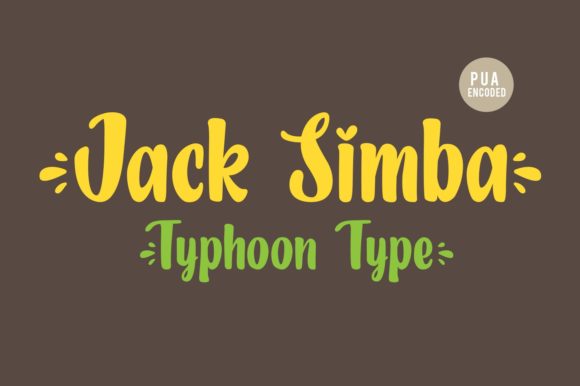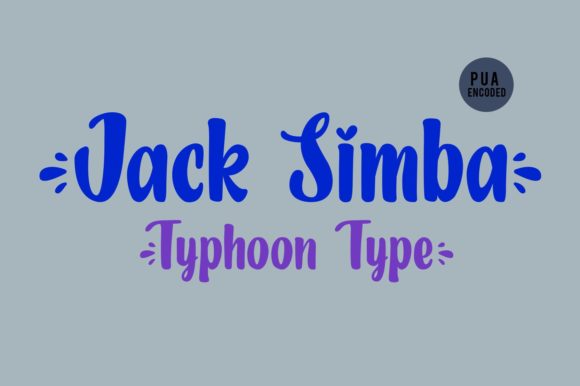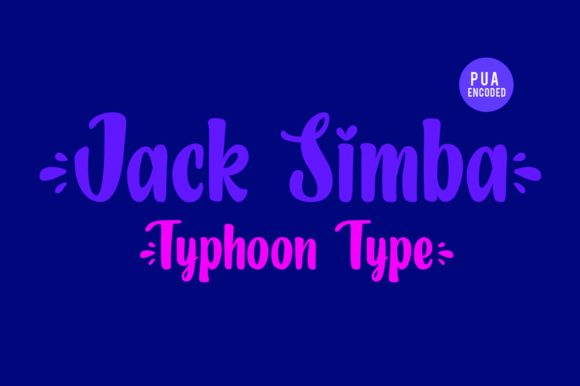
Jack Simba Font
About Jack Simba Font
Jack Simba is a paint brushed handwritten font, described by an elegant touch, perfect for your favorite projects. Fall in love with its incredibly distinct and timeless style and use it to create spectacular designs!